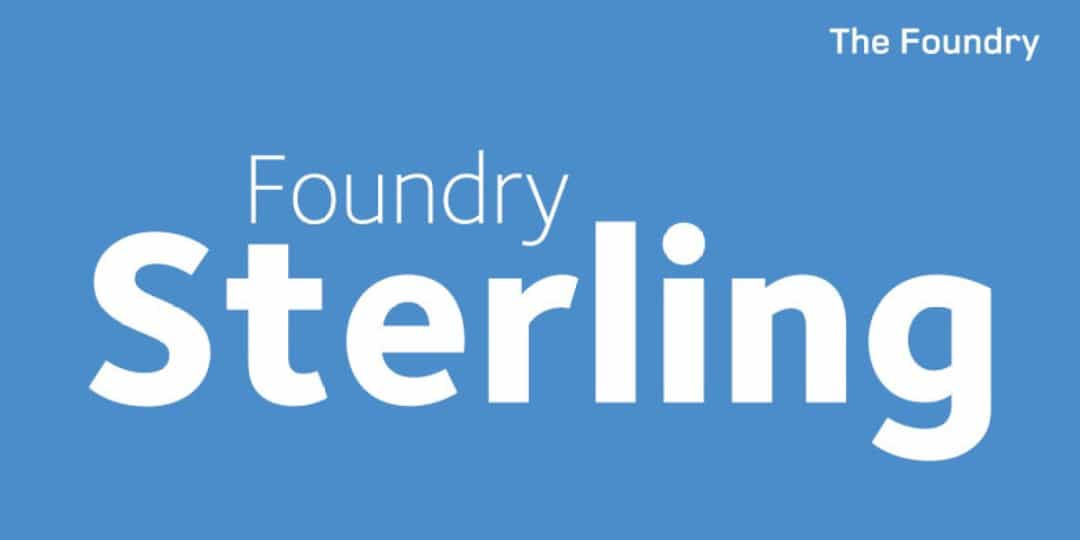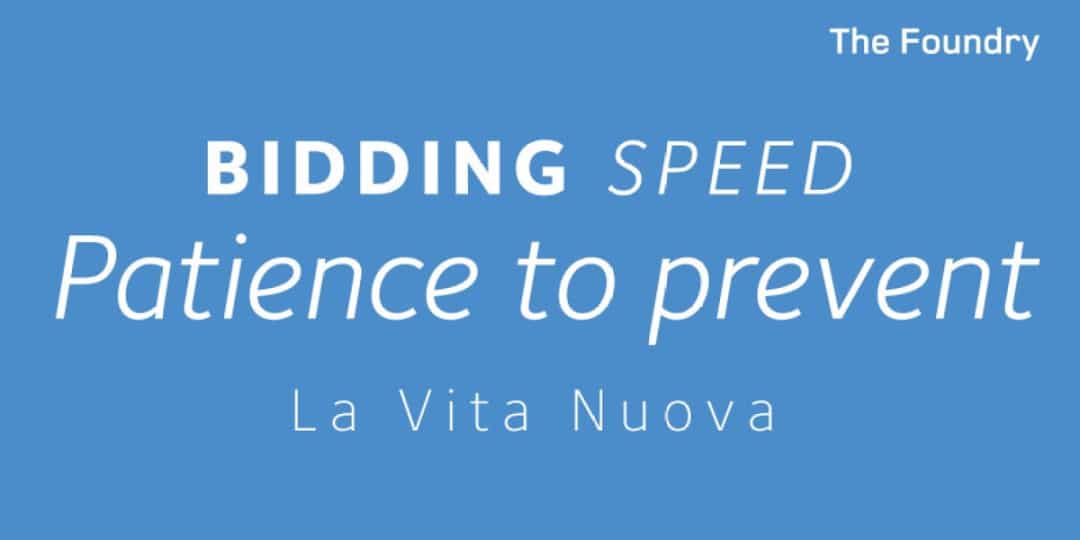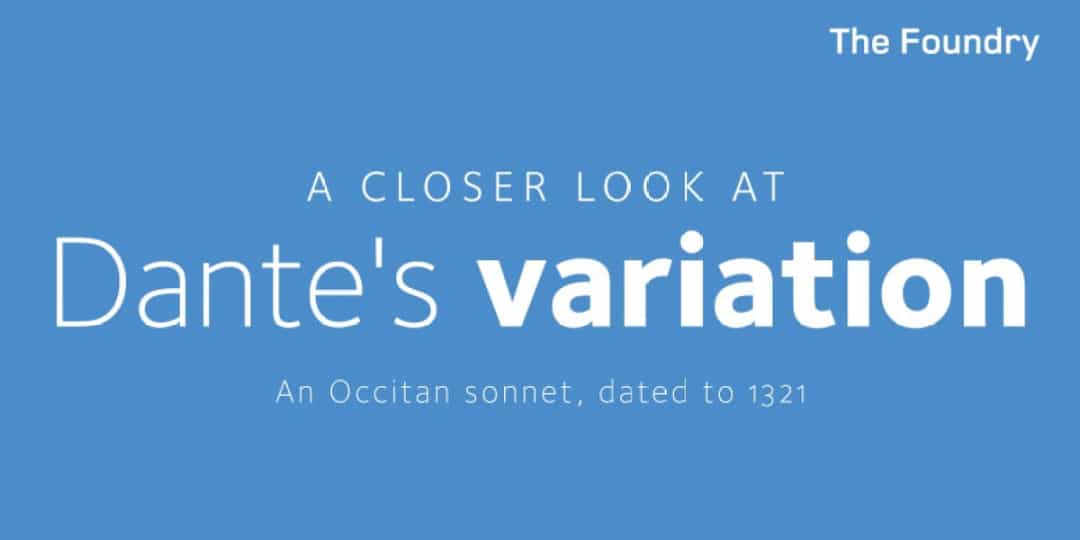
Foundry Sterling is a Sulkin Auslander creation of the elegant and functional typeface family filled with English flair ambitions designed to make a modern sans-serif design. The letterform roots were referenced in the classical shape and proportion, leading to a practical yet gorgeous typeface family.